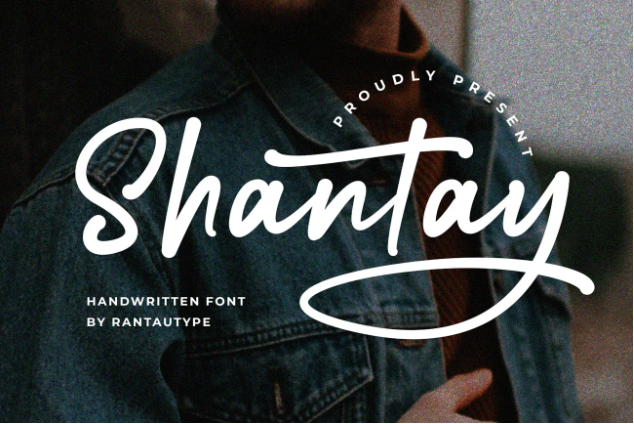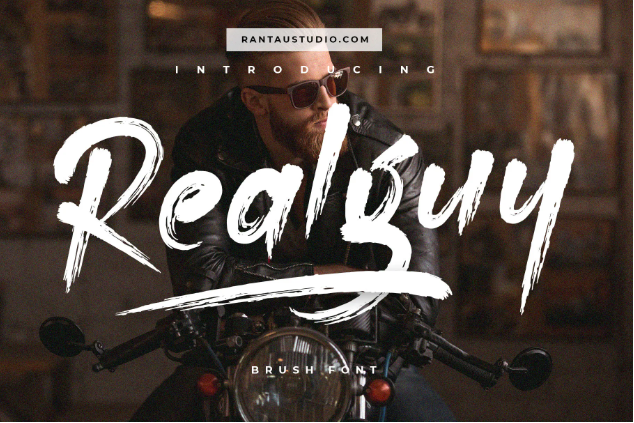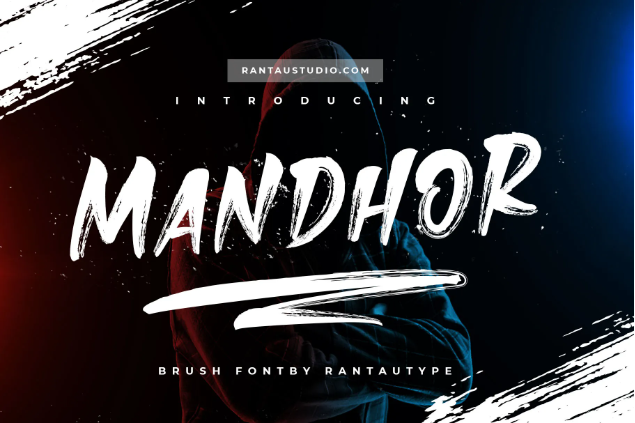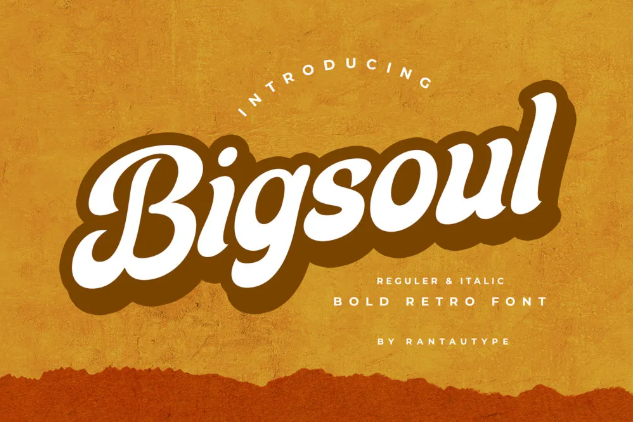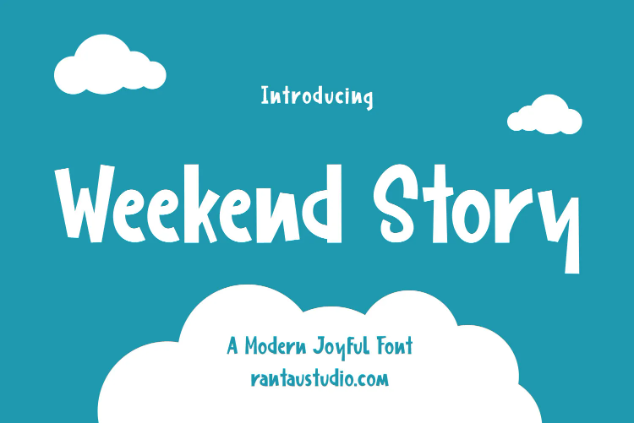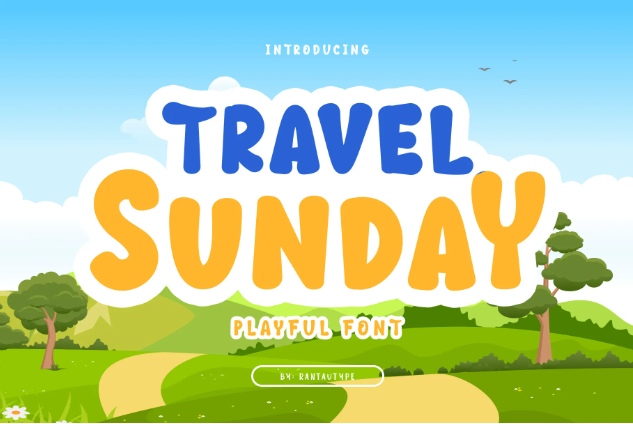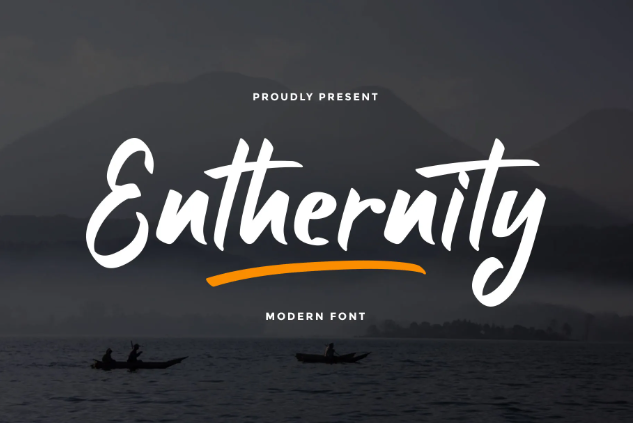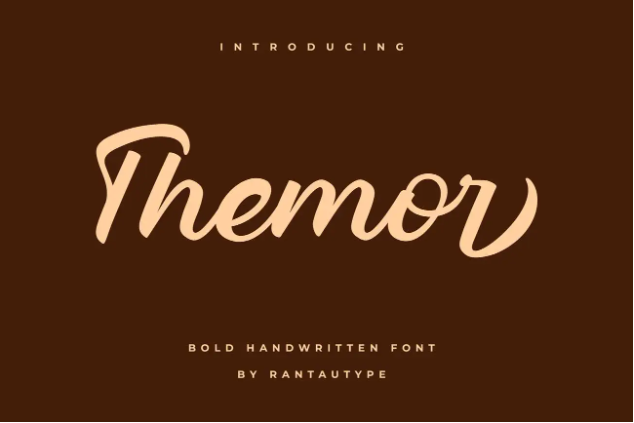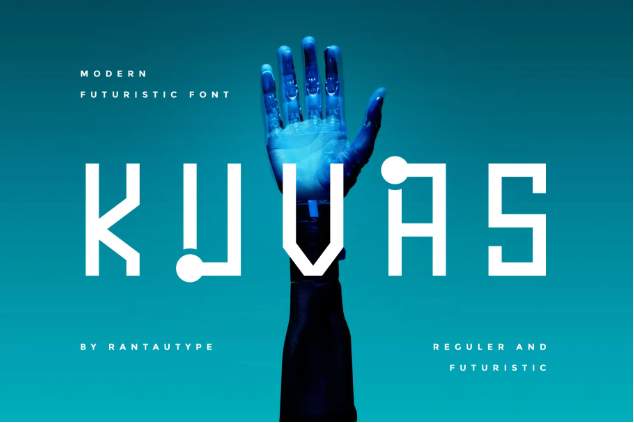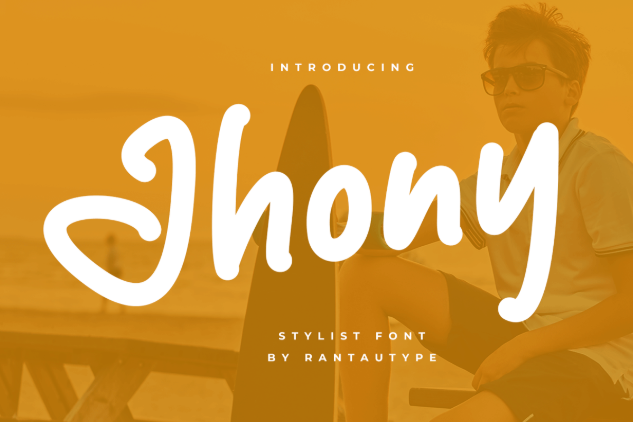
Most popular fonts for t-shirts must blend style and readability, making them essential for eye-catching apparel. The right font can convey mood and personality, from retro-inspired scripts, to bold san-serif, here are some of the most popular typefaces for t-shirt designs.
While choosing the font for t-shirts, you cannot choose it randomly. The characteristics must be readable so that the owner can understand what is the meaning behind it. However, it does not mean you cannot choose a unique one. As long as it suits the theme, you can use the font for your clothing lines.
With numerous font types on the market, we’ve compiled the bestselling, most unique, and trendy fonts for t-shirt designs. Let’s take a look!
With Shantay’s handwritten font, you can add a casual yet stylish typography to your t-shirt design.
BlackEra can elevate your urban streetwear concept with its cool brush look. This font also offers swashes to ornate your t-shirt.
If you want a more rugged brush visual, Corza is the font. This font can better display a carefree nature in typography.
When looking for a sleek, clean design, Authorsign is one of the most popular fonts for t-shirts with its modern script look.
Slaro is the font that pops when you want a standout design. Its bold, marker look creates a lively and hyped atmosphere.
Belliones is a sophisticated handwritten font with a touch of script style. This font exemplifies a light, deliberate stroke in typography.
Along with its delicate touch, Beatme also brings out a feminine look. This font has a great feature for a natural concept.
King Never Die has an authentic wide dry-brush look. This is an all-caps font with strong swash options.
As the name suggests, with Fresh Sunday, you can introduce a fresh and lively visual to your design.
Among the most popular fonts for t-shirts, Realguy exemplifies carelessness on each letter with its quick, vertical swipe.
Mandhor guarantees a legible design with its bold letters. This font also displays lithe strokes on its swashes and letterforms.
A fun and retro font like Bigsoul can better grab attention and also complete your extravagant designs.
When opting for a professional look, Podcast is the font you need. This retro font has bold letterforms and flared ornaments for each letter.
Shailor Adventure is a playful display font with versatile capability that fits numerous t-shirt designs, including kids, casual, and summer concepts.
Special Moment is a bold, angular, and playful sans-serif font. This font has varied height and placement contributing to its playful look.
Critical Figure is a classy script font with bold and masculine aesthetics. This font displays a modern, sleek letterform on every stroke.
The most popular fonts for t-shirts on our list include Weekend Story. This is a playful font with paper cutout visuals along with all the inconsistencies.
For t-shirt designs targeted toward children, the Travel Sunday font is the one. This font has bold, soft letters plus some cute clip art in it.
Brother Royal uses the italic style upon its bold, script letterforms. With that style, this font exudes classy, masculine vibes.
Generation is a bold script font with a delicate touch on every letter. This font has a dynamic thickness and stylish swash selections.
With its flowy loops, Partner deserves to be among the popular fonts for t-shirt design. It’s a bold script font with vintage aesthetics.
Using the Enthernity font on your t-shirts will create a dreamy and casual vibe. This modern script font has bold, eye-catching letters.
Themor is a sophisticated modern font with script aesthetics. When used on a t-shirt, this font exudes a professional and clean look.
Among the most popular fonts for t-shirts, Synthia is pretty unique. This font uses thin strokes which enable designers to fit more words in a design.
For your futuristic designs, try Kuvas. This font offers two styles, the regular and the other with circle accents, displaying an electric circuit look.
As a t-shirt font, Entahlah is particularly intriguing. This font has unique letterforms even creating a new script look.
Jhony is a bold marker font with fun font representation. It is a sans-serif font that adopts comical details, resulting in casual designs.
Among modern script font categories, The Director is the most natural one. Of course, it has clean edges, but this font also displays the natural double strokes.
A quirky and fun font like Perfect Smile is a versatile choice for t-shirt design. It can fit kids’ clothing, casual, or even hats.
Candery is another of our versatile fonts. Depending on the overall design, this bold script can merge with casual and formal designs.
A great t-shirt balances font style and color to create a visually striking look. When considering colors, what is the most popular font colors for shirts? Black dominates for its contrast and readability, while white, red, and yellow, are also favored for making bold statements.